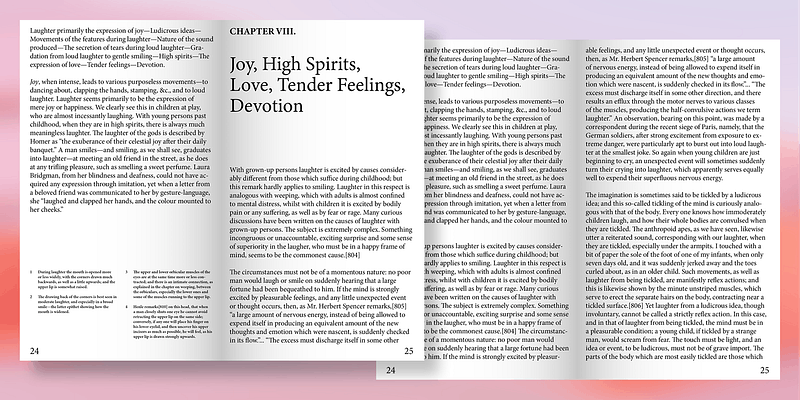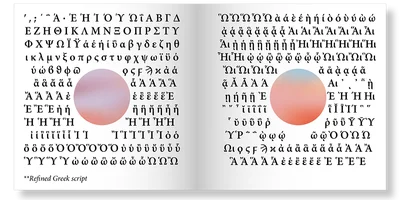
Kepler vs Minion Pro
Kepler and Minion Pro are both serif typefaces sharing a modern foundation. Where Kepler leans transitional, editorial, Minion Pro brings old style, elegant. Compare which suits your Editorial project.
Recommended: Kepler
- transitional, editorial design character
- Suited for Magazines and Branding
- From Adobe
Consider: Minion Pro
- old style, elegant design character
- Suited for Print and Academic
- From Adobe